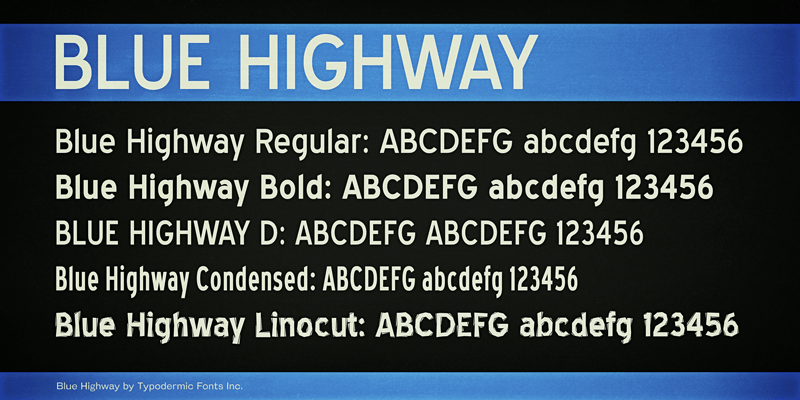
In 1996, I created Blue Highway, a font based Canada/U.S. highway sign lettering. The original version was kind of a mess and subsequent versions weren’t much better. In 2004 I discontinued Blue Highway & replaced it with Expressway. But some people still prefer Blue Highway, despite the technical problems. Recently, I rebuilt Blue Highway and retained the clunkiness, goofy charm & cost of the original (free). Blue Highway 5.0 comes with an updated license agreement which allows all kinds of fun stuff like web embedding, format conversion, modification & embedding in apps. The Blue Highway family includes Regular, Bold, Condensed “D” & Linocut styles and is available in OpenType & TrueType format. These fonts include a license that allows free commercial use: sometimes referred to as a desktop license. This allows you to install the fonts on a computer and use them to create posters, web graphics, game graphics, t-shirts, videos, signs, logos and more. Read the license agreement for details. If you'd like to embed these fonts in an app, ebook, on the web or anything that's not covered by the desktop license agreement, visit the link below. You'll find distributors who offer different types of licenses or you can contact me for help. http://typodermicfonts.com/blue-highway-5-0/ |